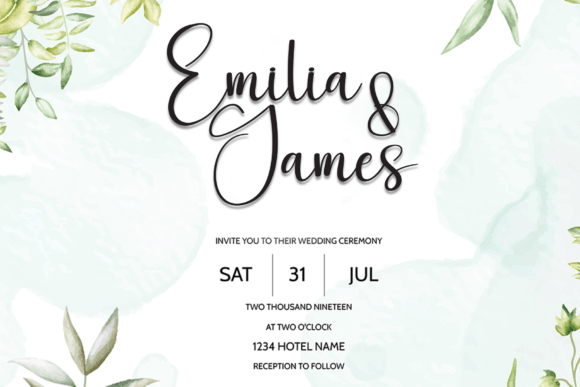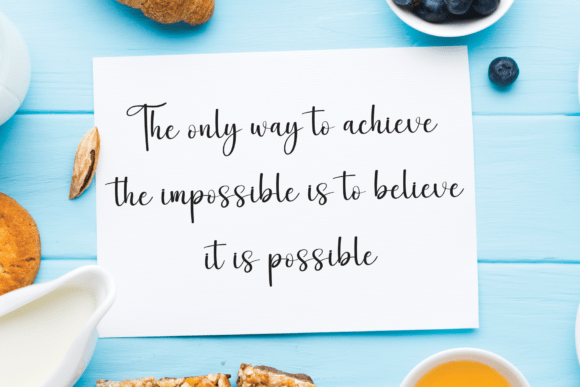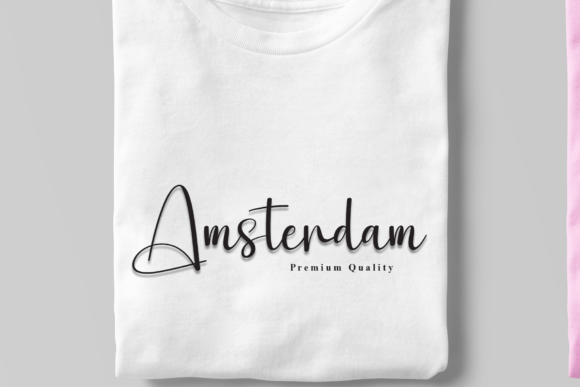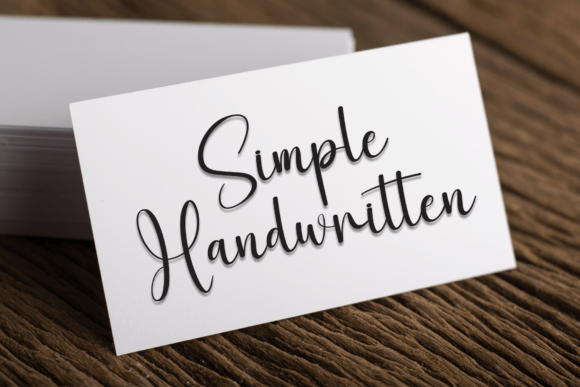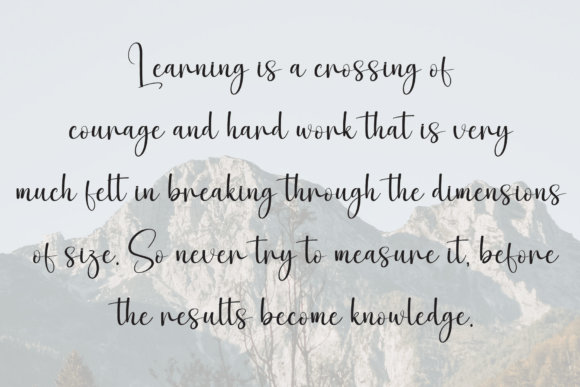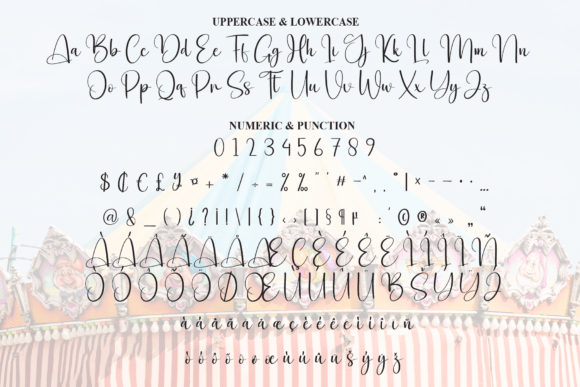
The Perfect Script for Your Creative Vision
Remember the moment when you stumbled upon the perfect font for your next project? The one that makes you go “aha” and sets your creative juices flowing? For many designers, this moment is all about finding the right balance of elegance and modern flair. And that’s exactly what Bestival Font offers.
This stylish handwritten script font is designed to add a personal touch to any project, from branding and invitations to social media graphics. Its flowing strokes and organic curves bring warmth and sophistication, making it the perfect choice for designers who want to elevate their work without sacrificing its human touch. Whether you’re a seasoned pro or just starting out, Bestival Font is a valuable addition to your design arsenal, allowing you to add effortless charm to your creations.
Bestival Font Key Features
- Font Family: Bestival is a custom-designed font, making it unique and exclusive to the Bestival brand.
- Unique Characteristics: The font features a distinctive, hand-drawn style with a mix of uppercase and lowercase letters, giving it a playful and artistic feel.
Bestival Font Review
Overall, I found Bestival Font to be a visually appealing typeface that works well for music festival and cultural event branding. ✨ The font’s playful, handwritten feel captures the carefree spirit of the Bestival experience, making it a great fit for the brand.
Here are some of the font’s strengths:
- ✨ Unique and memorable design that sets the brand apart
- ✨ Highly legible, even at small font sizes
- ✨ Works well for digital and print applications
- ⚠️ Limited font weights and styles available
- ⚠️ May not be suitable for formal or corporate branding
- ⚠️ Can be difficult to pair with other fonts
Overall, I think Bestival Font is a solid choice for music festivals and cultural events looking for a distinctive and memorable brand identity. While it may not be the best fit for every project, it’s a great option for those looking to convey a sense of fun and creativity.
Tips for Getting the Most Out of Bestival Font
To get the most out of Bestival Font, try the following tips:
- Use Bestival Font in conjunction with other bold, playful fonts to create a unique and eye-catching design.
- Experiment with different font sizes and styles to add visual interest to your design.
- Use Bestival Font in headings and titles to draw attention to important information.